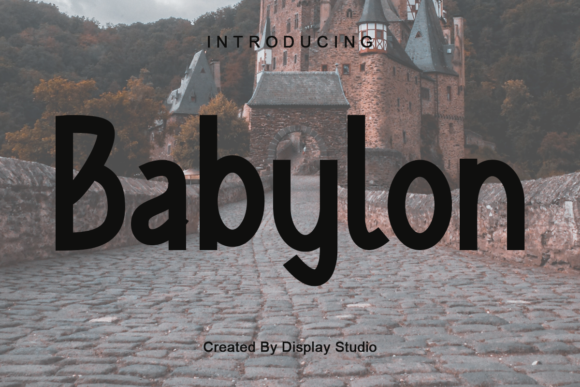
Prepare to be mesmerized by Babylon Font, the captivating display font that exudes boldness and charisma. Immerse yourself in a world of visual intrigue as you explore the limitless possibilities that await with this typographic masterpiece. Whether you're a seasoned designer seeking to elevate your creative endeavors or a passionate individual seeking a unique voice for your projects, Babylon Font stands ready to ignite your imagination and transform your designs into captivating works of art.
Unleash the power of Babylon Font and watch as your words take on a life of their own. With its striking presence and commanding aura, this font demands attention and captivates audiences with its unwavering confidence. Its bold strokes and sharp angles create a sense of dynamism that breathes life into your designs, leaving a lasting impression on all who encounter them.
Journey through the depths of Babylon Font's glyphs and discover a treasure trove of typographic artistry. From the delicate flourishes of its intricate swashes to the subtle nuances of its letterforms, every element has been meticulously crafted to evoke emotion and convey a message of strength, elegance, and sophistication. Witness the transformative power of Babylon Font as it elevates your designs to new heights, leaving a trail of awe and admiration in its wake.
As a PUA encoded font, Babylon Font grants you the freedom to effortlessly access its entire repertoire of characters and swashes. Unleash your creativity and explore a vast universe of design possibilities, knowing that the full power of this font is at your fingertips. Experiment with different combinations of letters, symbols, and punctuation to craft unique and captivating compositions that resonate with your audience.
With Babylon Font, you hold the key to unlocking a world of creative expression. Let your imagination soar as you craft stunning logos that command attention, design eye-catching posters that leave an indelible mark, and create social media graphics that ignite conversations. Unleash the boundless potential of Babylon Font and watch as your designs flourish, captivating audiences and leaving a lasting legacy of excellence.